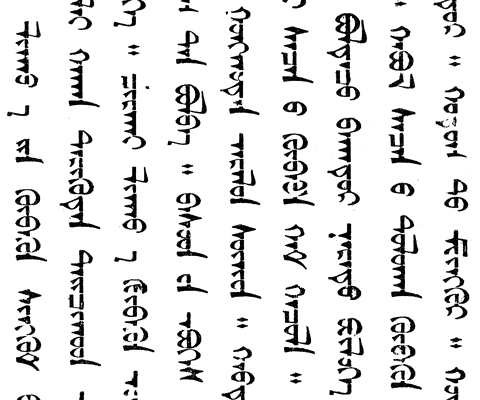
I am looking for research or studies done on the legability/readability of vertically stacking letterforms, or any studies at all on the subject. Contact me at: pacedes@cableone.net if you have any sources.
is it Japanese that reads vertically? I forget. but there's some languages that do...check with your librarian
Spine titles:
It's actually a difference between European and American practice.
BTW, Chinese is written in both vertical and horizontal, although the latter is more prominent now. I don't think Japanese is written vertically, at least not in the mainstream. Another interesting vertical language in Mongolian, which used to be written in Cyrillic, but recently switched back to their original script, which looks somewhat similar to Arabic, interestingly enough.
A small sample of Mongolian from an "obsolete" book I once bought from the UCLA library, for 75 cents: http://www.themicrofoundry.com/other/mongol.gif
BTW, in terms of research, I think I remember reading about a study that compared reading Chinese vertically versus horizontally, finding that the latter was better. Which is no surprise, considering the shape of our field of vision, not to mention our necks.
Thanks, but I don't know that much, I just talk a lot. I study and admire Eastern scripts, but I don't do any actual setting on my computer. But I'm sure there are people listening who do, so just hope they're 1/10th as talkative as I am. (Sorry.)
The traditional way of writing Japanese is indeed from top to bottom and from right to left (!), but nowadays it is often written horizontally from left to right. However, the vertical way of writing is in no way extinct
this hardly constitutes a study but I have noticed that german books tend to have the title on the spine written so that one reads bottom to top rather than top to bottom...
Check "The Visible Word" by Herbert Spencer. It's old, but a treasure trove.